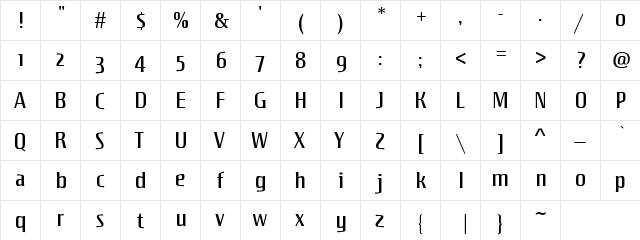
Atto Sans Regular
Design Context for Atto Sans Typeface
Atto Sans offers clean, dependable letterforms without strong stylistic allegiance, making it a practical choice for designers who need flexibility.
Pro Tip: Pair Atto Sans with a font of contrasting weight or personality to build a more expressive typographic hierarchy.